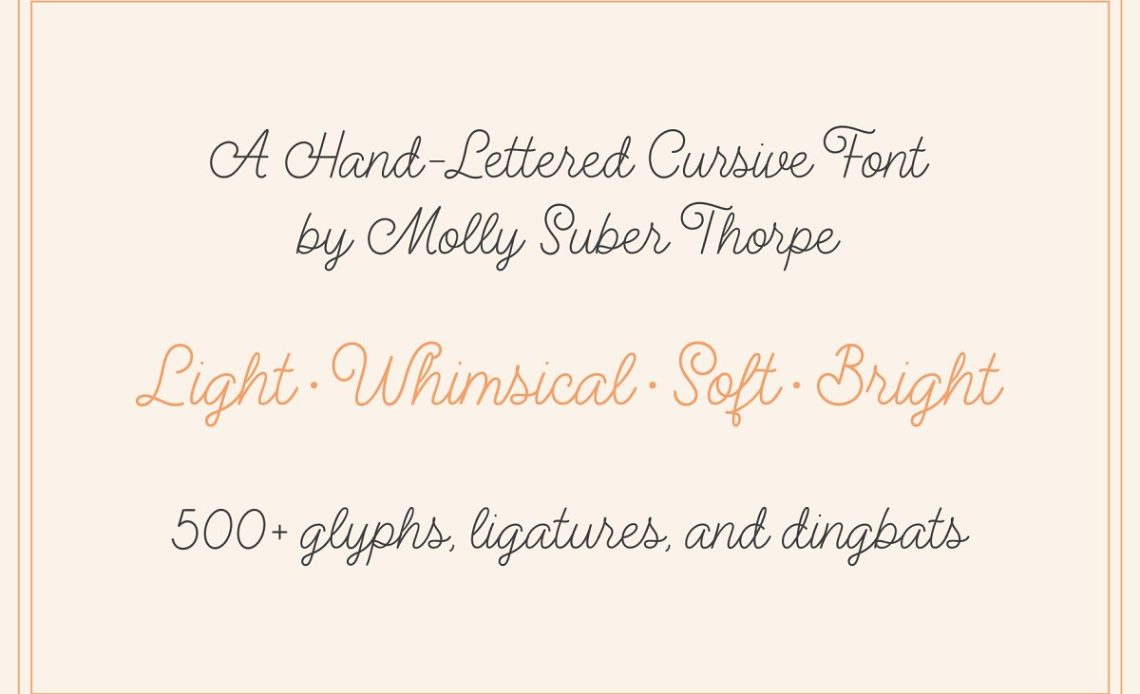
Looking for a font that's whimsical, soft, and bright? Look no further than Honeydew Script Calligraphy Font, created by the talented Molly Suber Thorpe. This monoline script style font is a modern take on classic schoolhouse cursive, making it a perfect choice for a variety of applications.
With 527 glyphs, including the complete Latin alphabet (upper and lowercase), numbers (lining, old style, fractions, super/subscript), punctuation, and diacritics, as well as over 40 standard and discretionary ligatures, Honeydew is a versatile font that can be used for everything from branding and social media to weddings, stationery, packaging, layout design, and advertising. Plus, it comes with OTF, TTF, and webfont files (WOFF, WOFF2, EOT), as well as a folder of letter exemplar and inspiration images.